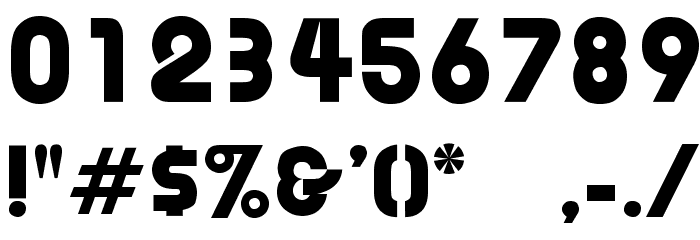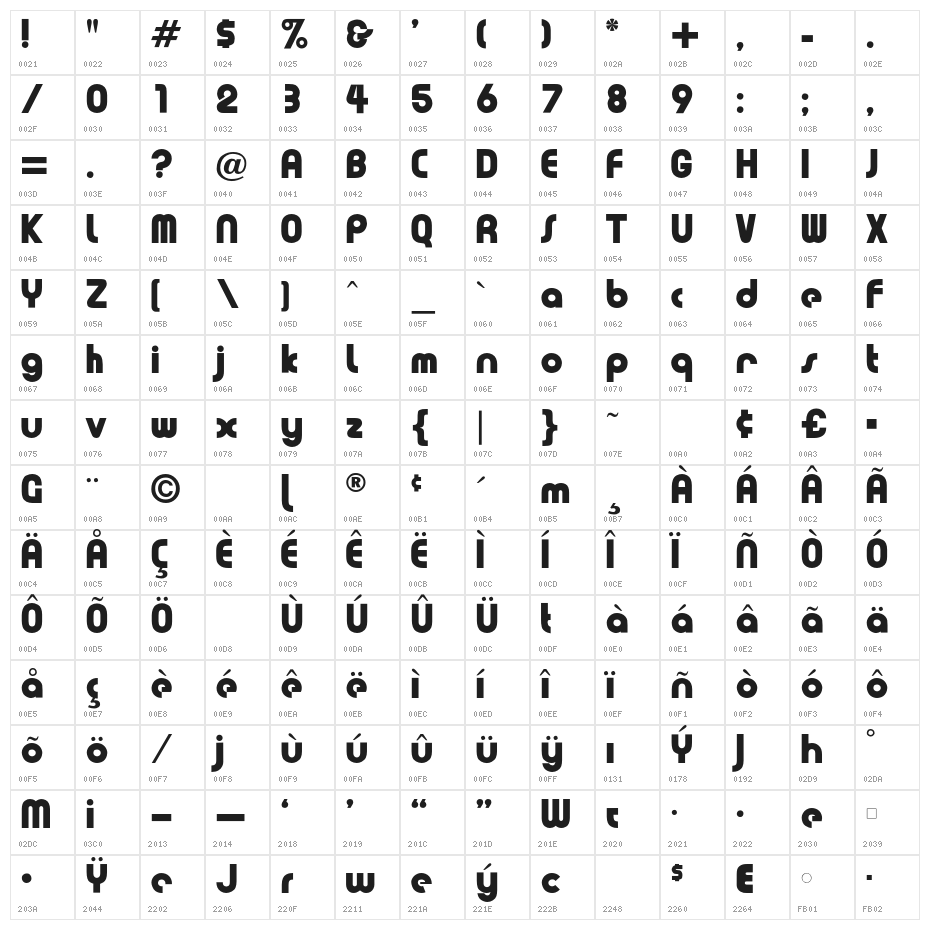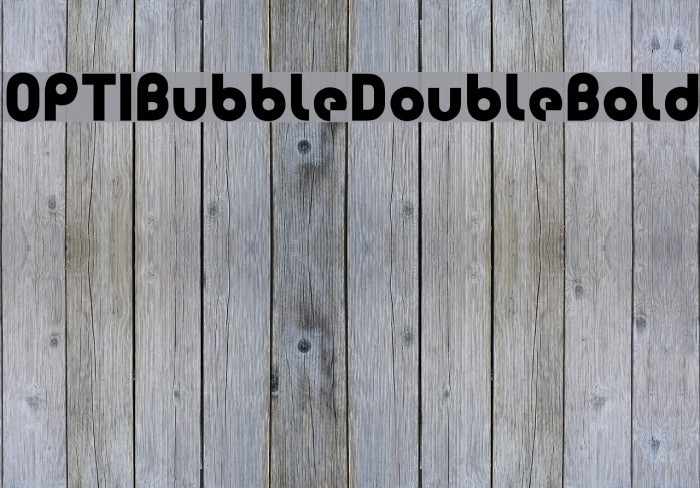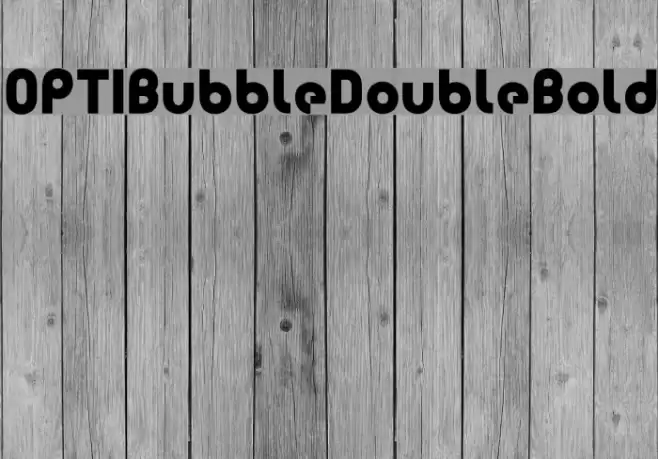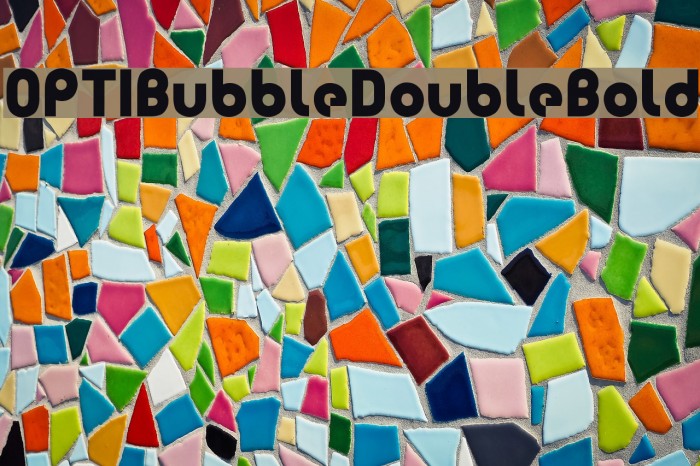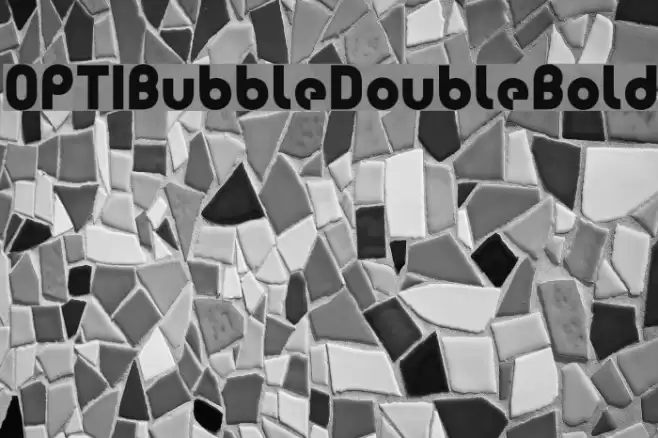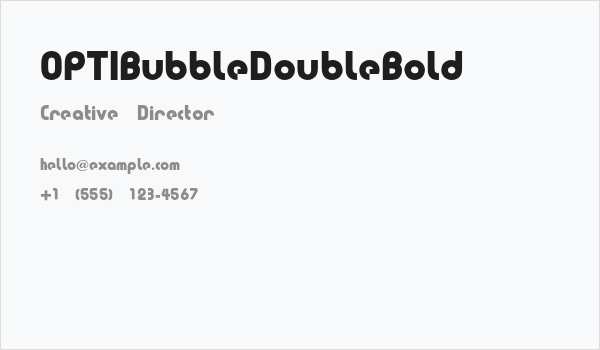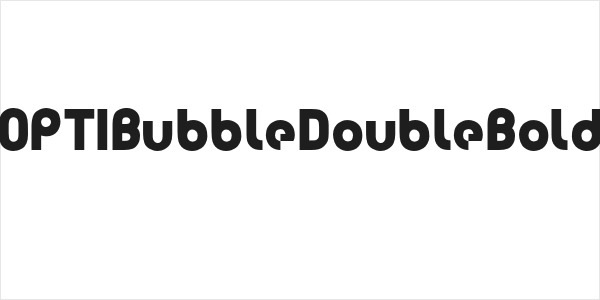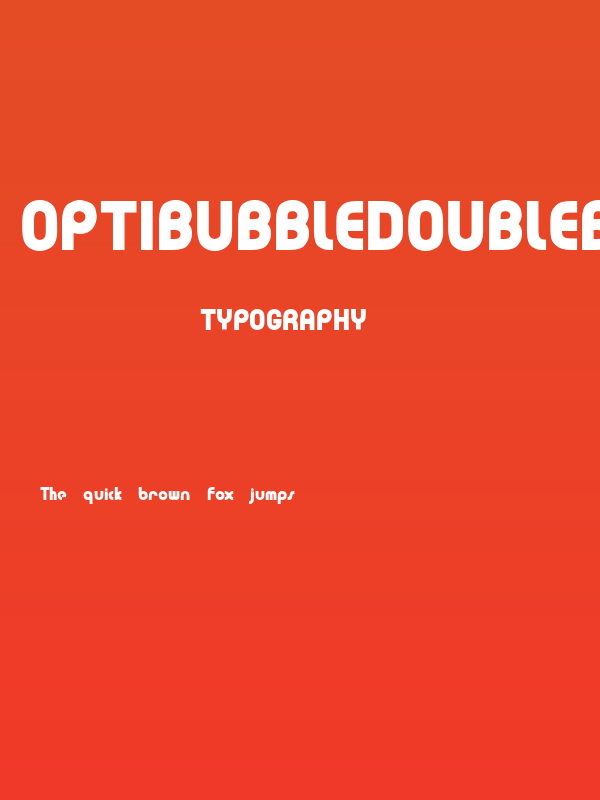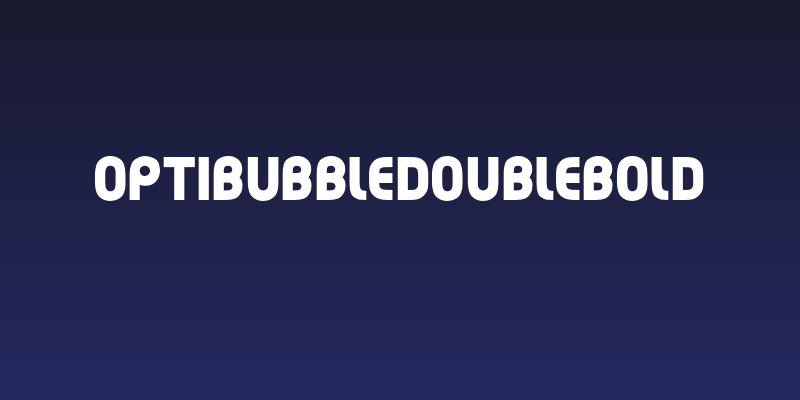
OPTIBubbleDoubleBold Font
OPTIBubbleDoubleBold Description
This font features a bold and playful design with rounded, bubble-like characteristics. The letters are thick and have a uniform stroke width, giving them a strong presence on the page. The uppercase and lowercase letters maintain a consistent style, with rounded edges and a slightly condensed form. The numerals and special characters follow the same design principles, ensuring a cohesive look across all text elements. This font is ideal for projects that require a fun and engaging aesthetic, making it suitable for children's books, playful branding, or eye-catching headlines.
| Overall Style | Playful, Modern |
| Proposed Projects | Ideal for children's books, playful branding, and eye-catching headlines. |